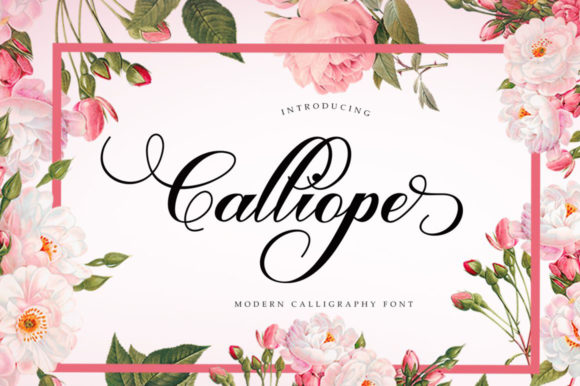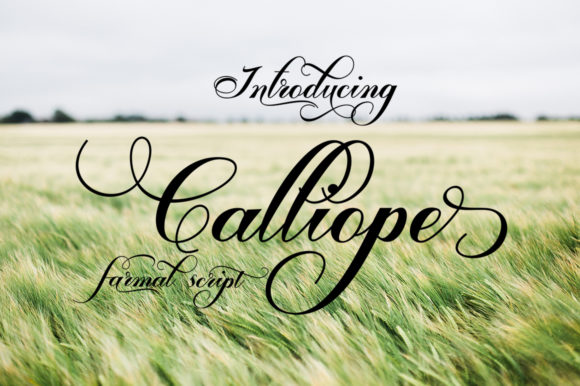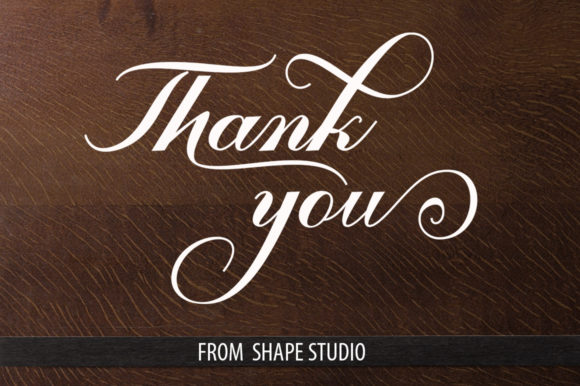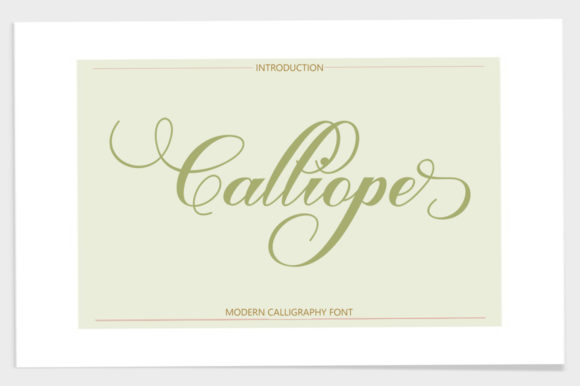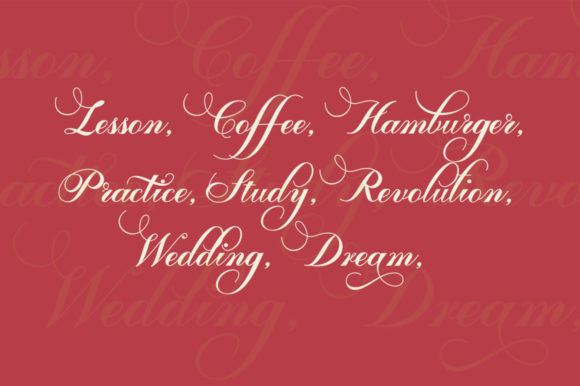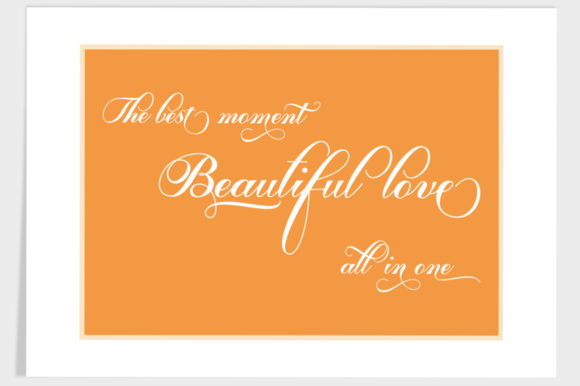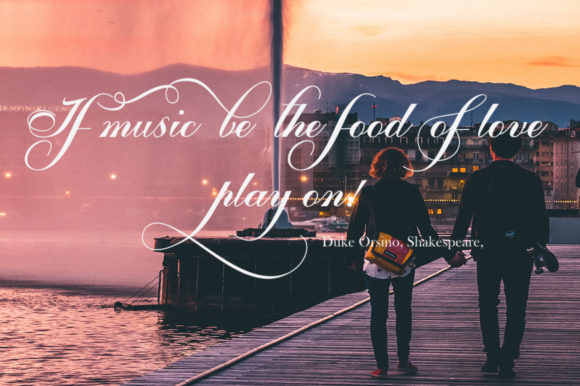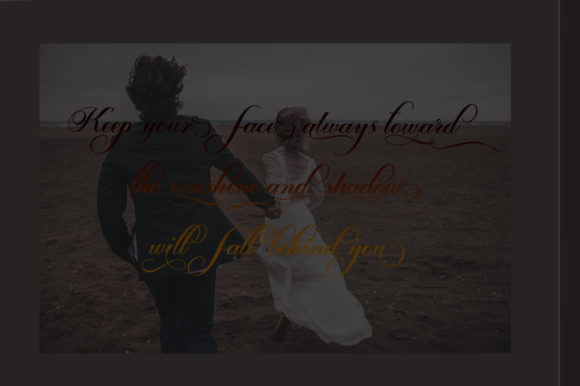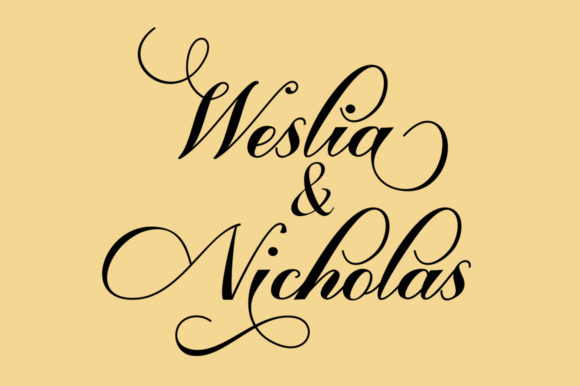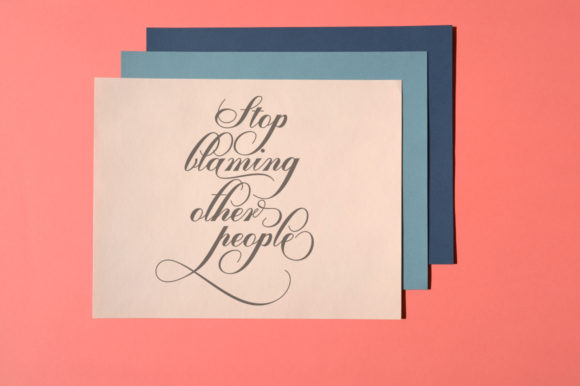
Calliope Script Font
About Calliope Script Font
The Calliope is a modern calligraphy script. It has a trendy and feminine style and an irregular baseline.
It looks perfect on wedding invitations, thank you cards, posters, and much more!